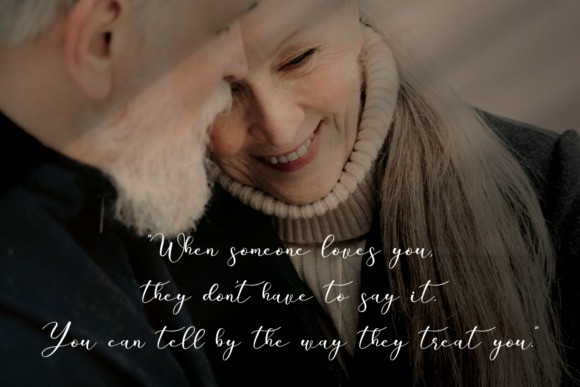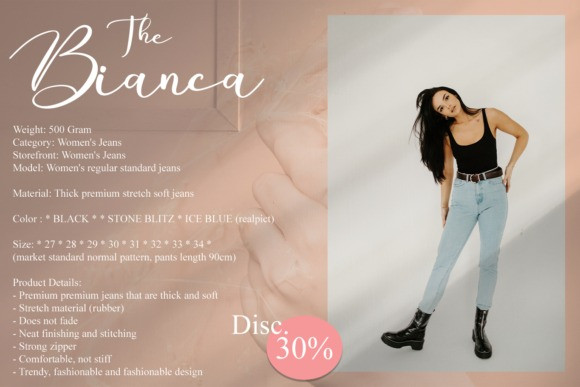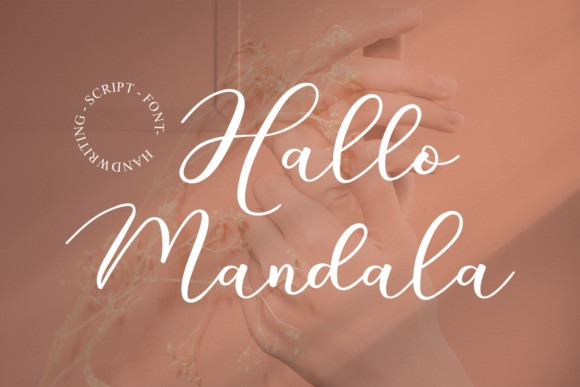
Hallo Mandala Font
Hallo Mandala Calligraphy Font is a lovely script font featuring charming, playful characters that seem to dance along the baseline. Add this font to your most creative ideas, and notice how it makes them stand out!